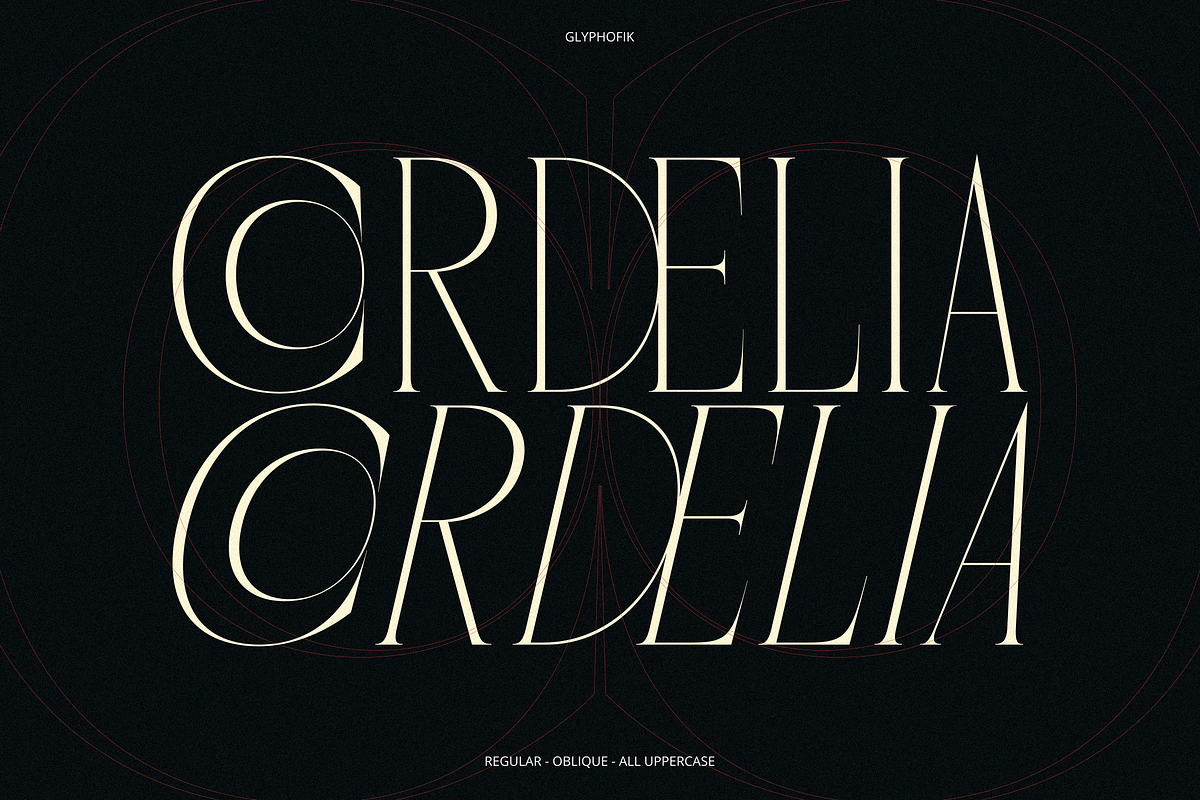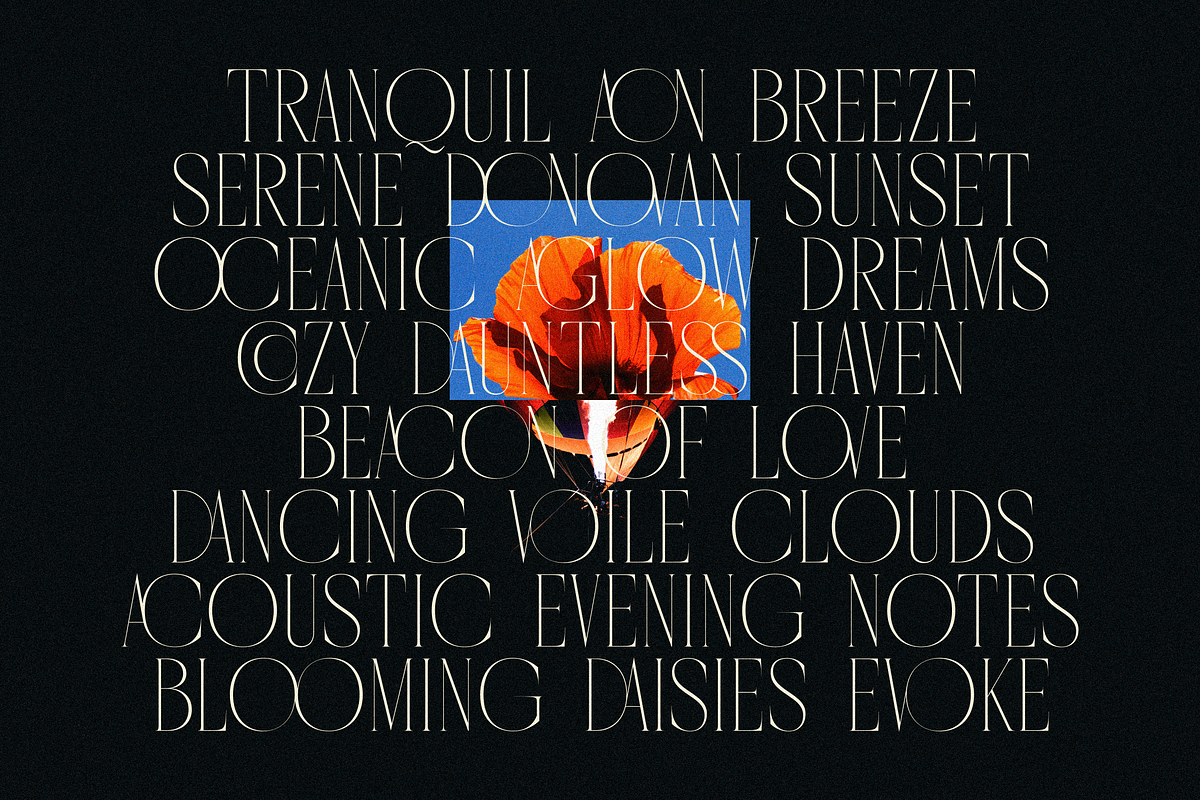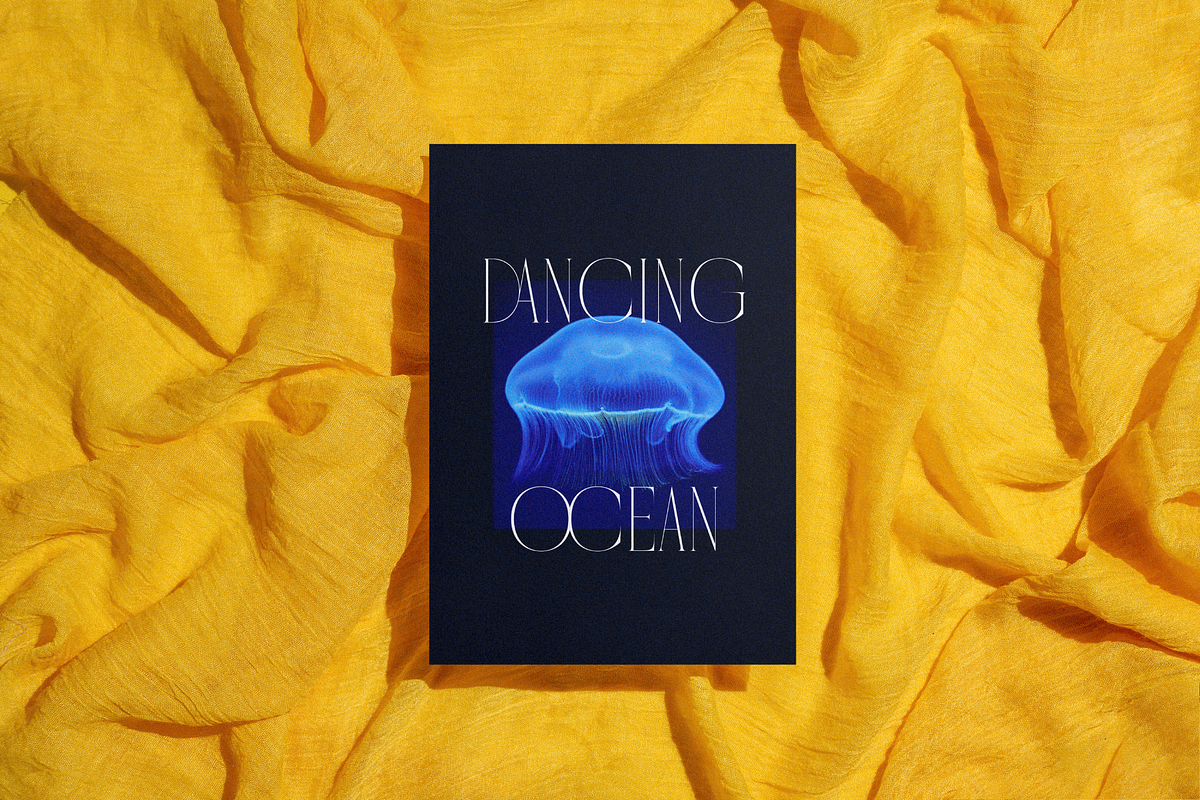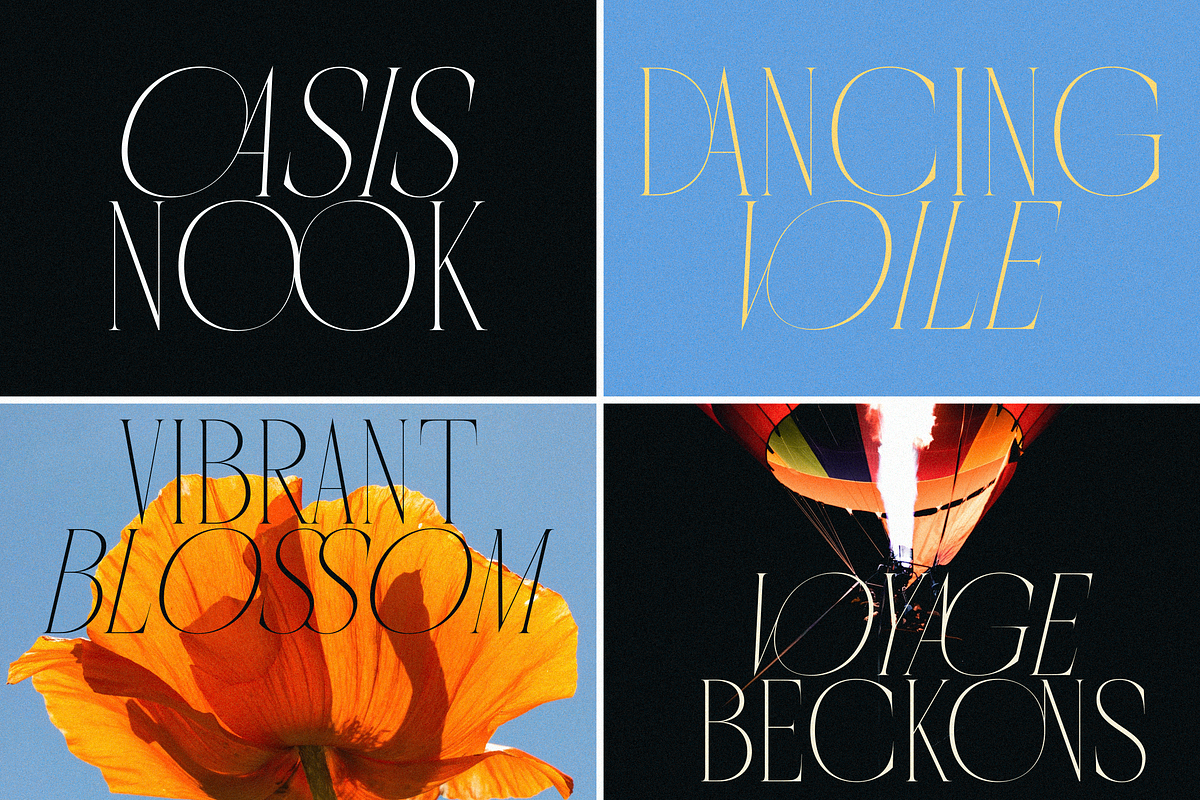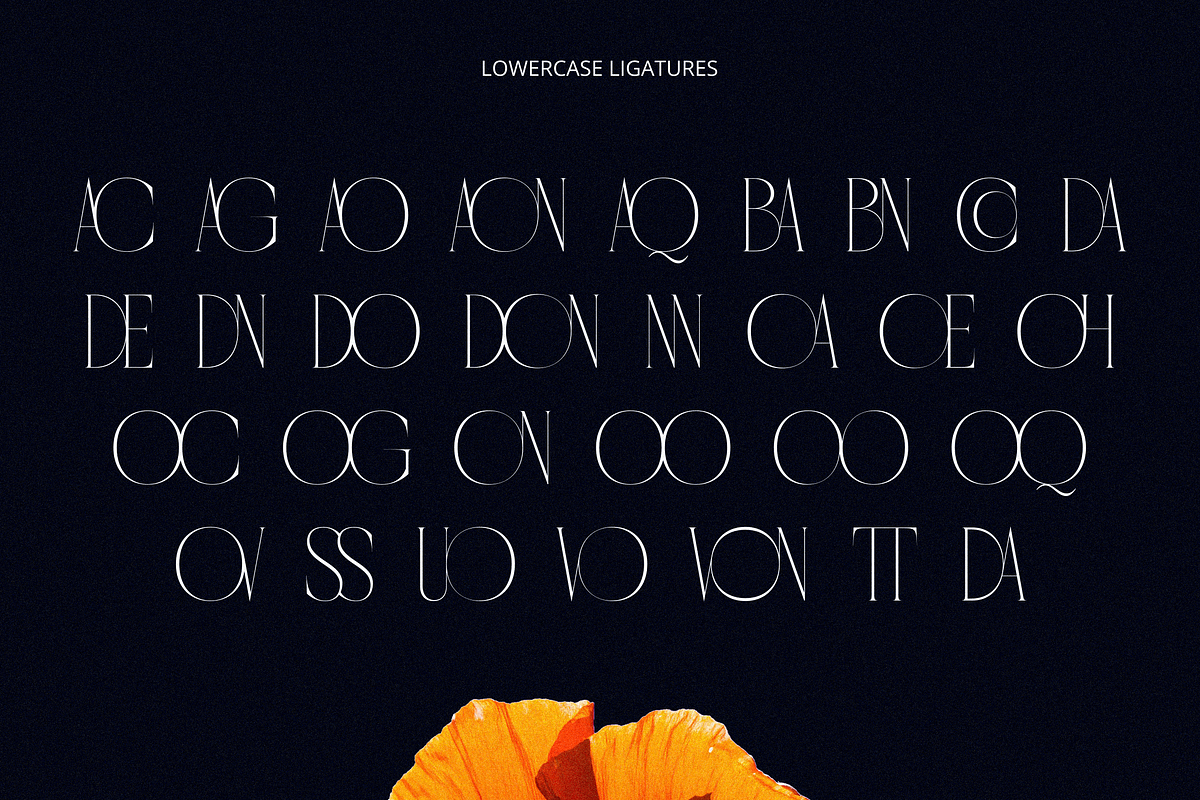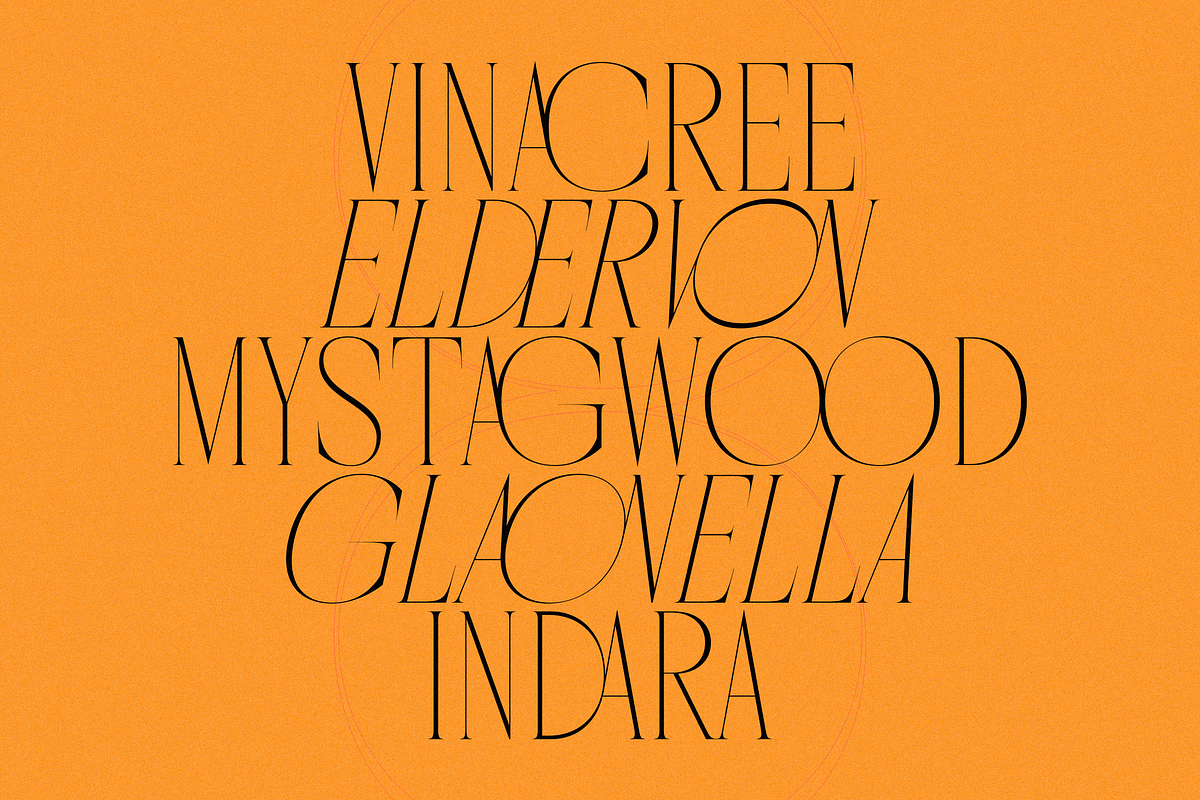
Cordelia - Unique Ligature Serif
Tired of designs that disappear unseen? Transform generic layouts into captivating art. Cordelia, a unique thin serif display, elevates your crucial message. Crafted for impact, ensure your work is unmissable, building an elegant premium feel instantly. Design worth seeing, finally.